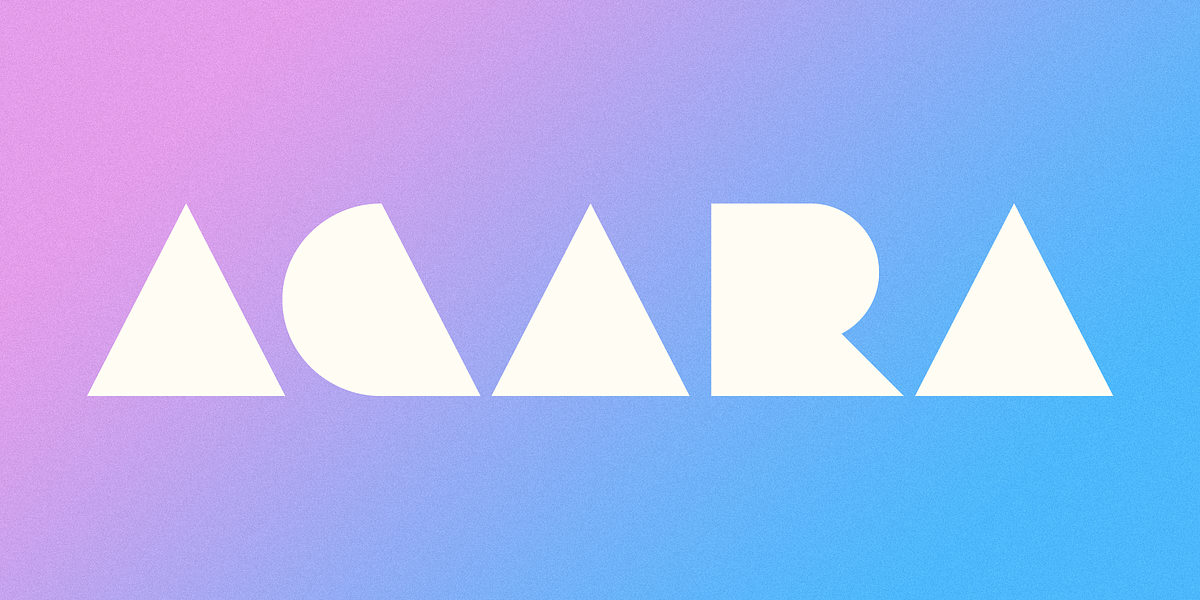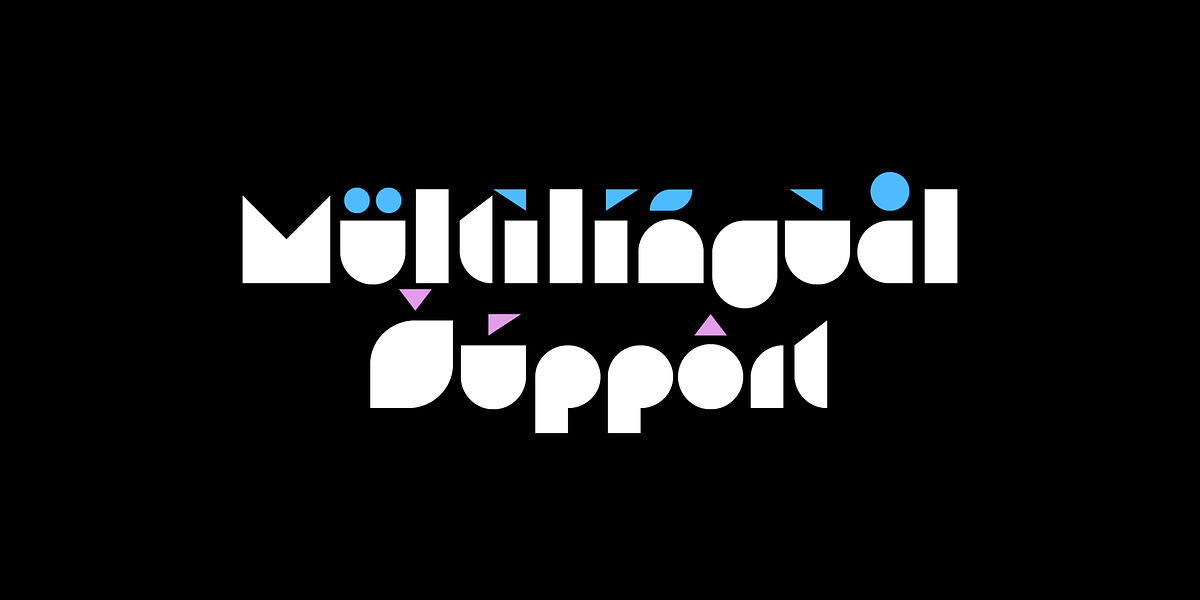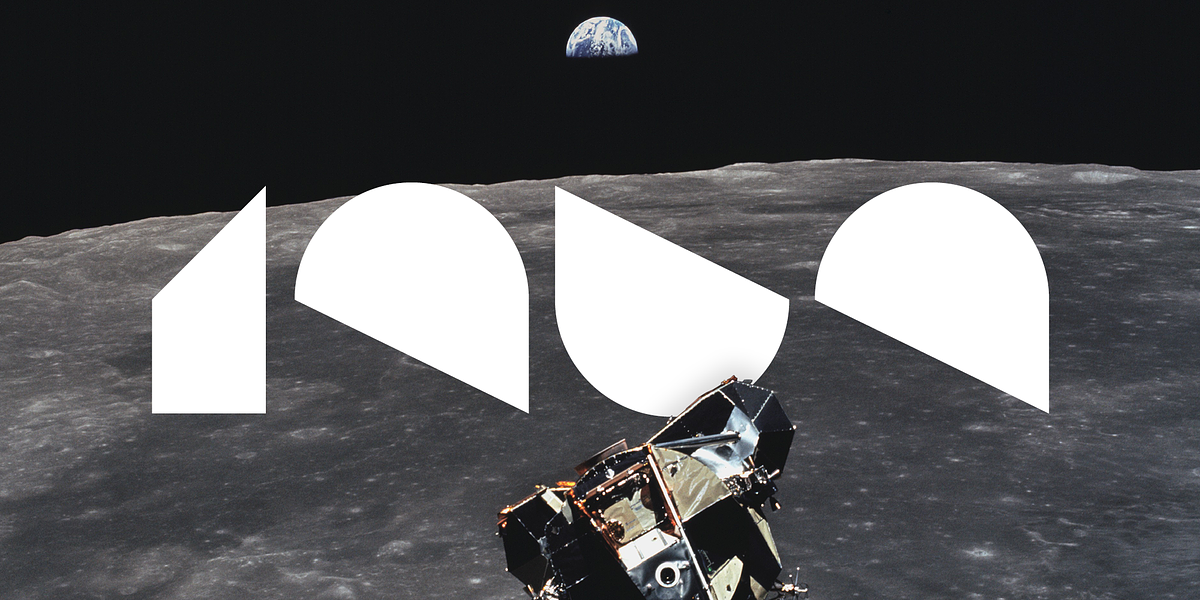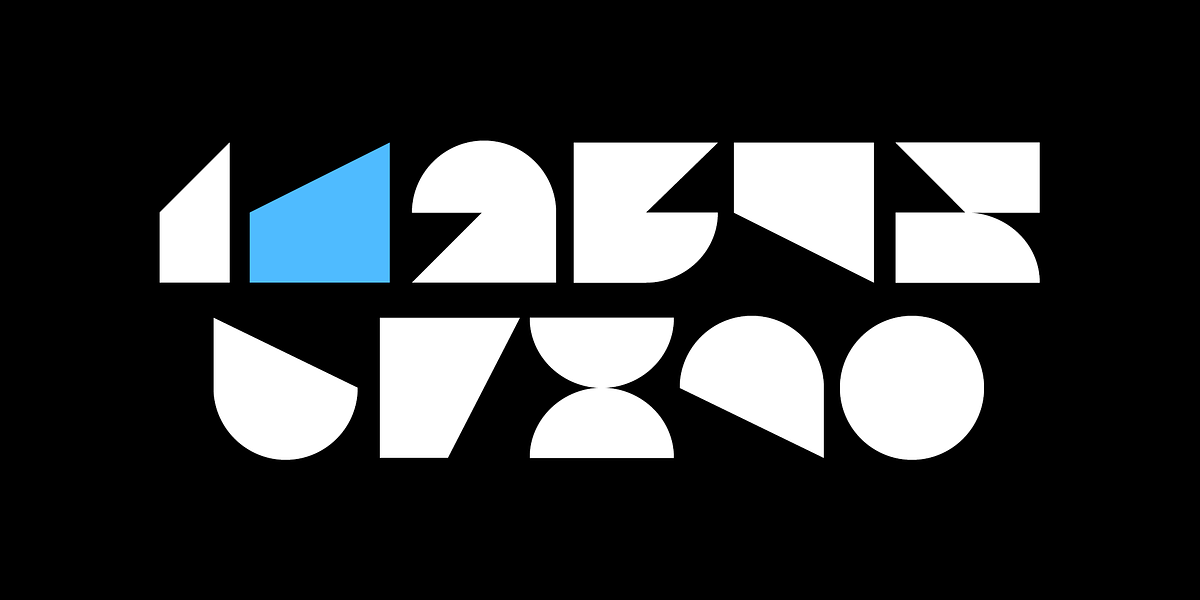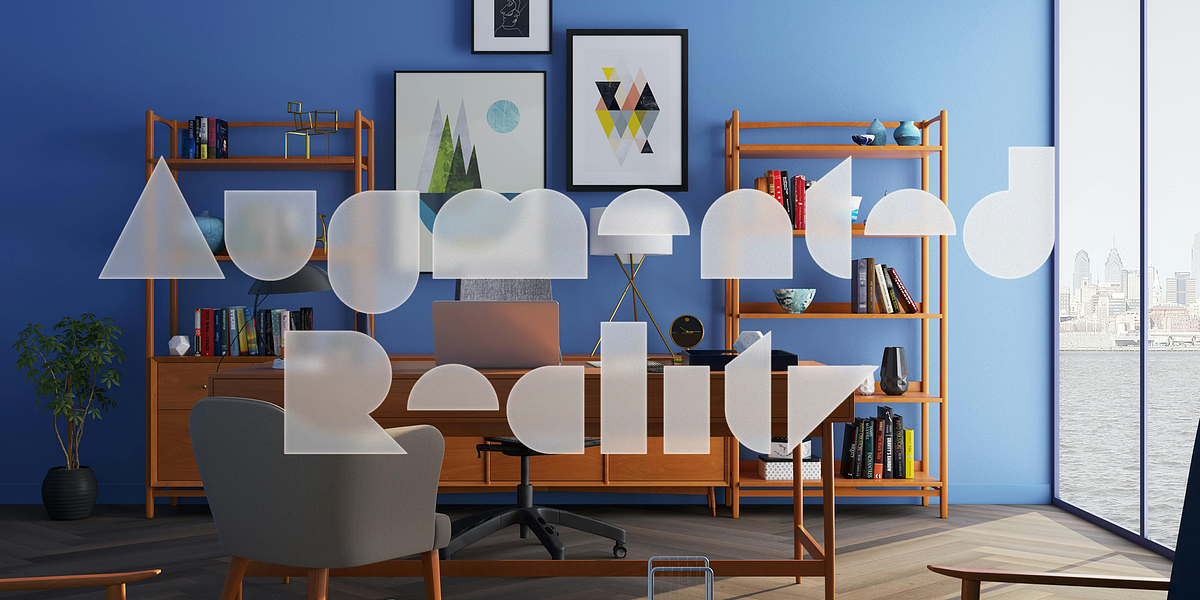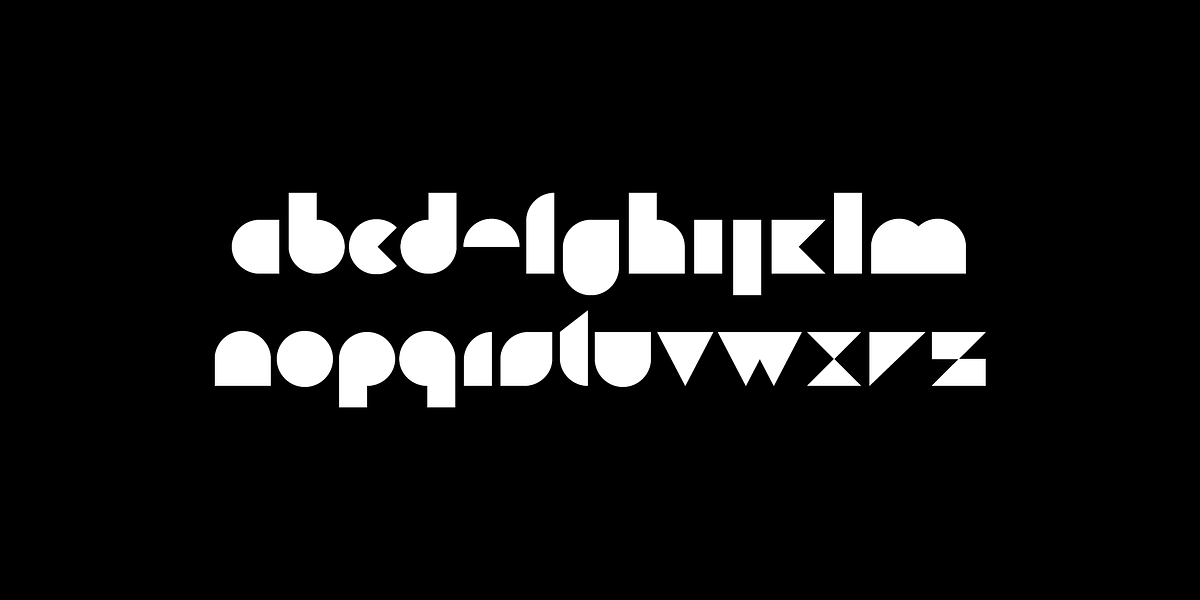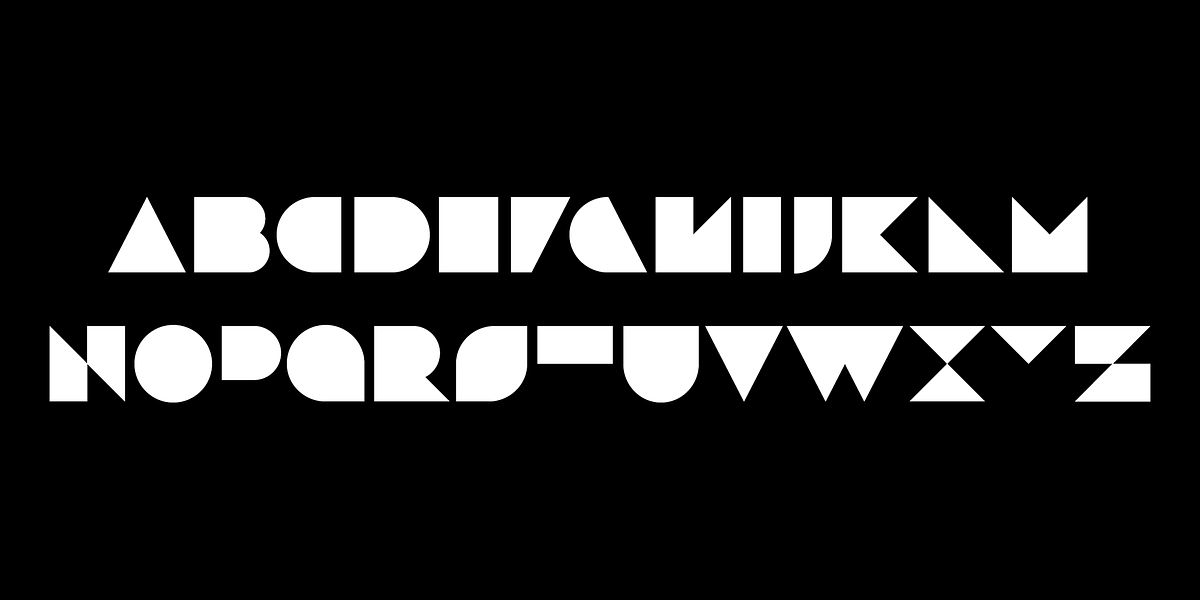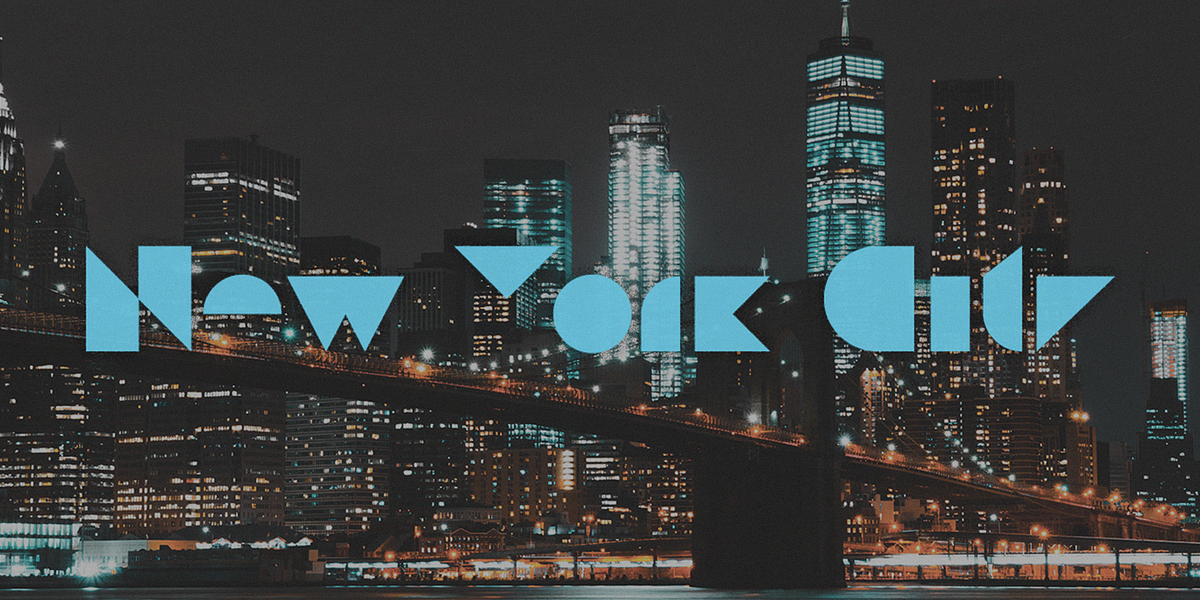
Agara
Agara is a bold, modern geometric sans-serif font designed for display purposes. It features a clean and precise aesthetic with both uppercase and lowercase letters. The font includes extensive OpenType features like fractions, ordinals, stylistic alternates, ligatures, and case sensitivity, making it highly versatile for multilingual projects. Its retro inspiration (evident in tags referencing the 1980s and 1990s) adds a touch of nostalgia while remaining contemporary and stylish.